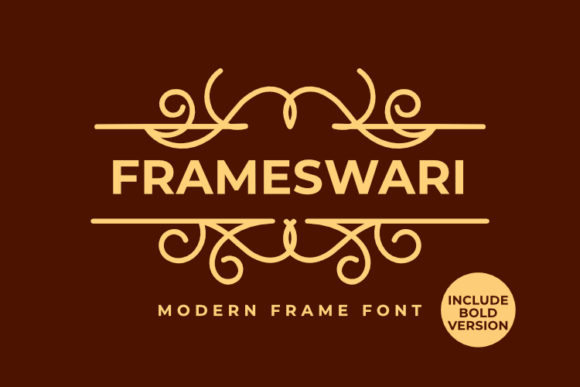
Prepare to be captivated by Frameswari, the enchanting display font that will adorn your designs with a touch of elegance and whimsy. This font family gracefully combines two distinct styles, offering you boundless creative possibilities.
Unleash your imagination and craft eye-catching frames that will elevate your projects to new heights. Each frame is meticulously crafted with delicate curves and intricate details, promising to add an unforgettable touch to your creations.
Whether you're designing invitations, posters, or social media graphics, Frameswari will effortlessly transform your words into works of art. Its versatile charm seamlessly complements a wide range of aesthetics, allowing you to infuse your designs with a touch of whimsy or a dash of sophistication.
Experience the joy of creating stunning frames that will captivate your audience and leave a lasting impression. Frameswari is the key to unlocking your creative potential and leaving an unforgettable mark on the world of design. Don't miss out on this exceptional font that will transform your designs into masterpieces.